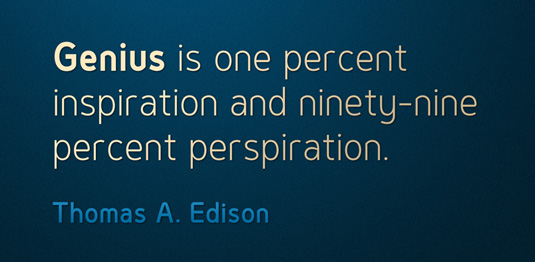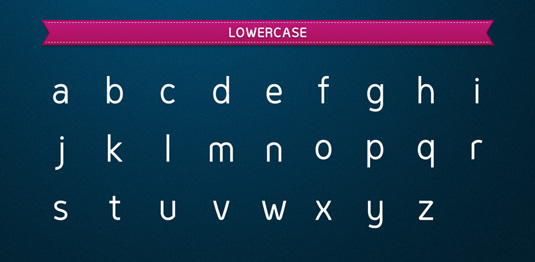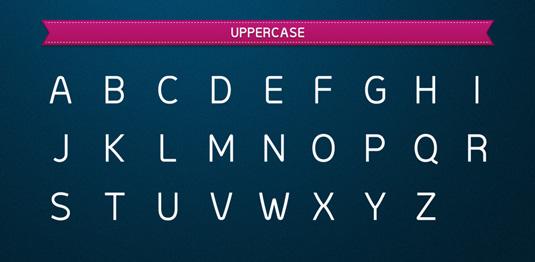
Font of the day: Genius
Every day we showcase the best fonts on the web. Today it's Genius by Ceyhun Birinci.
Genius by Ceyhun Birinci
A clean, geometric typeface, Genius was created by designer Ceyhun Birinci. Available from font foundry HypeForType, the font is described as having "great legibility and a modern look, making it perfect for any kind of use, especially branding, advertising, magazines and web design". The Genius family consists of seven weights with their italics, including hundreds of kerning pairs.